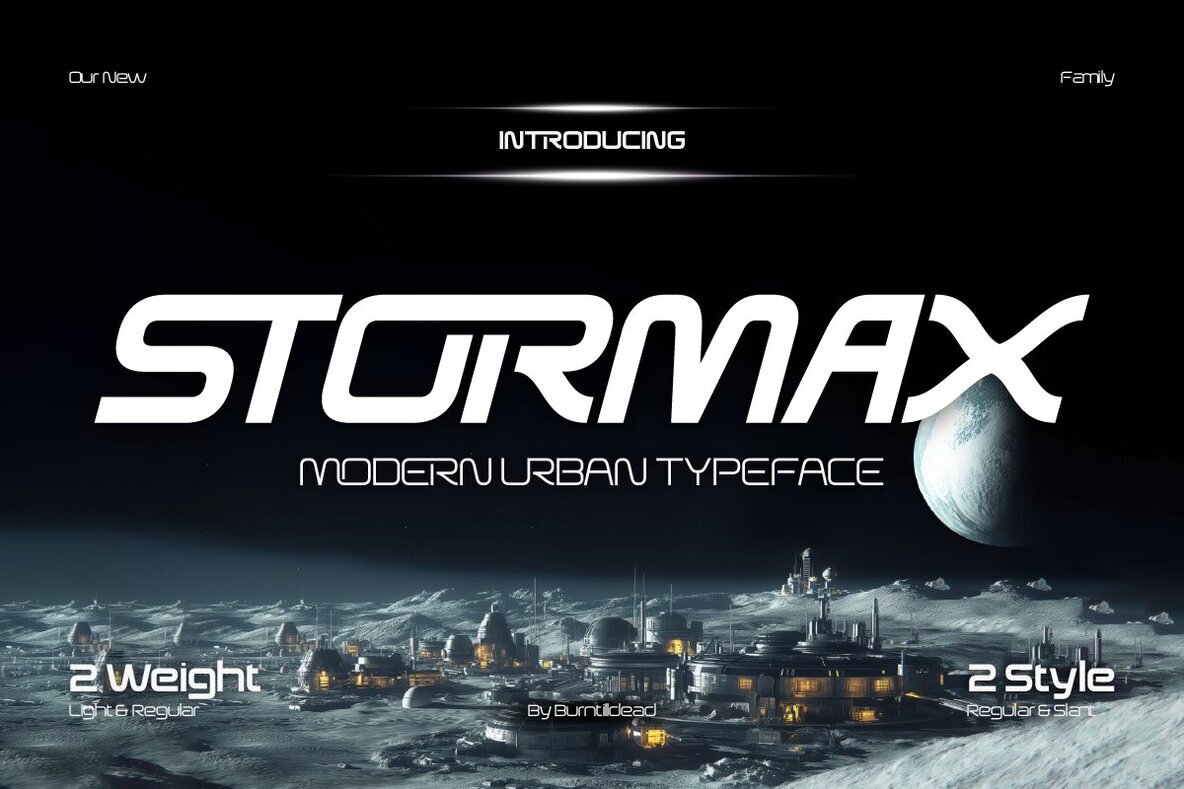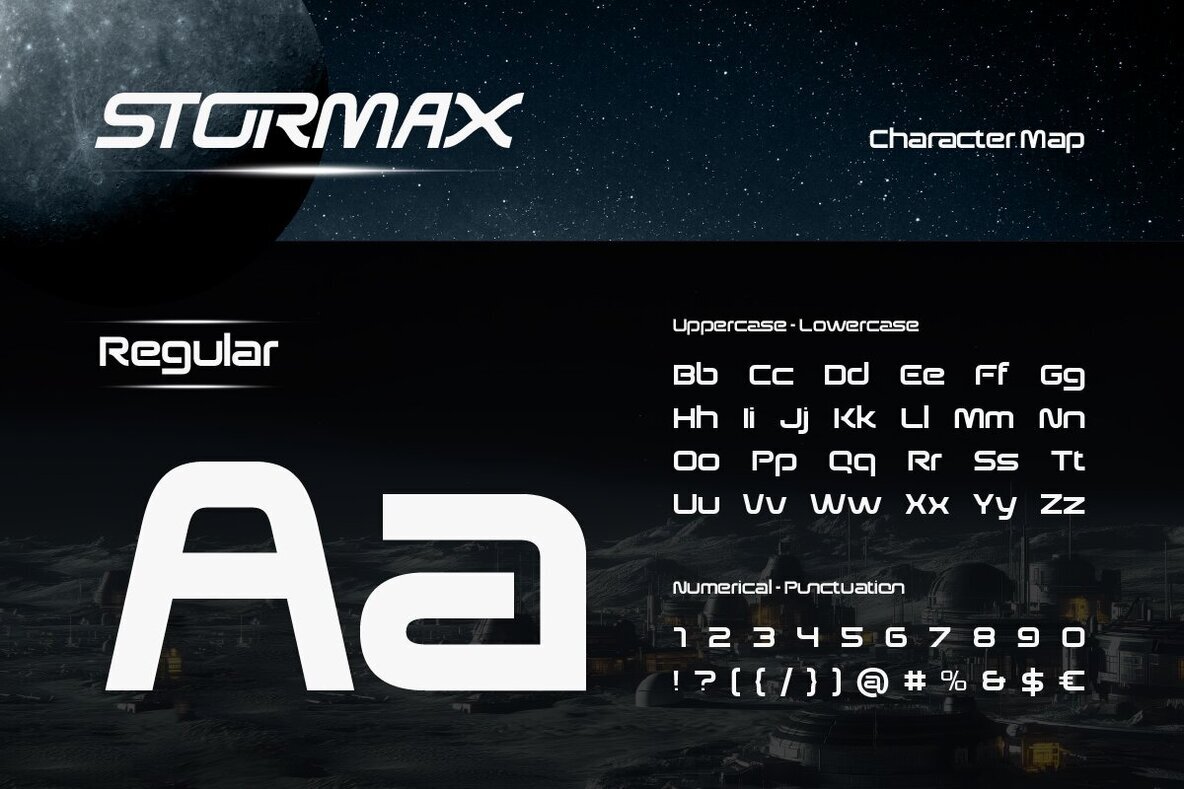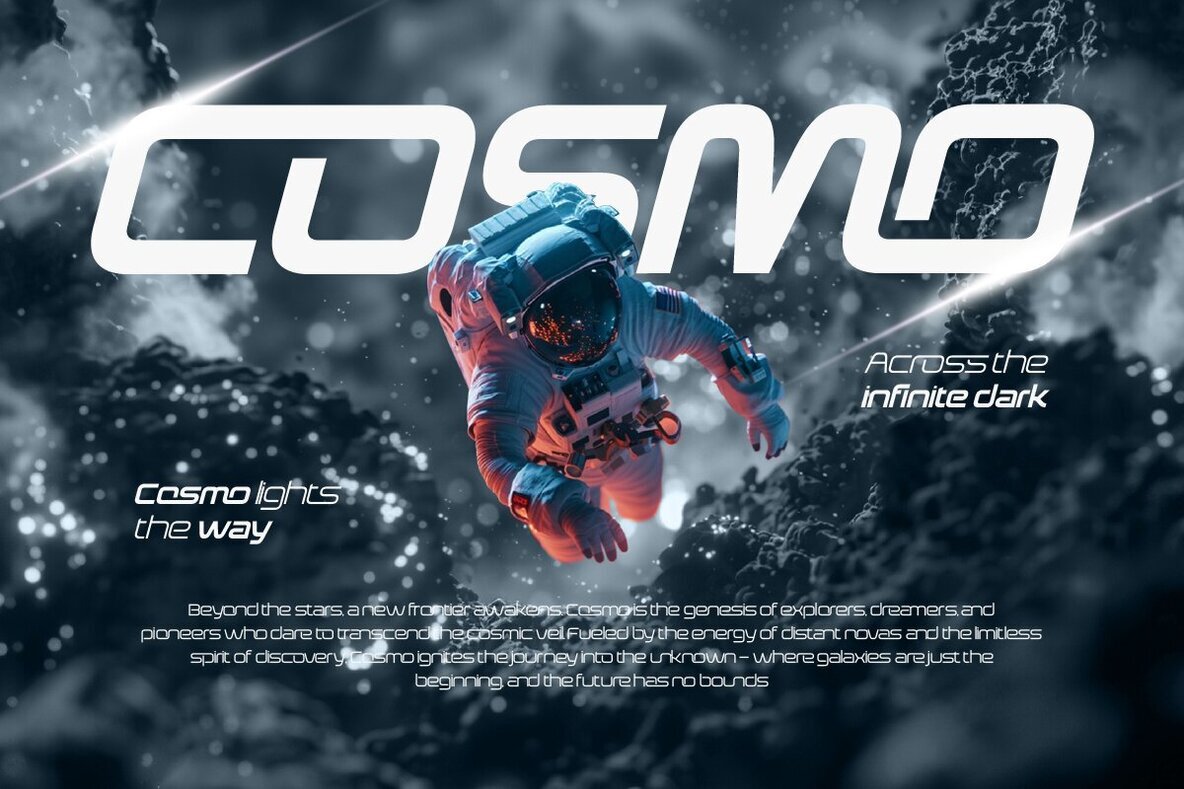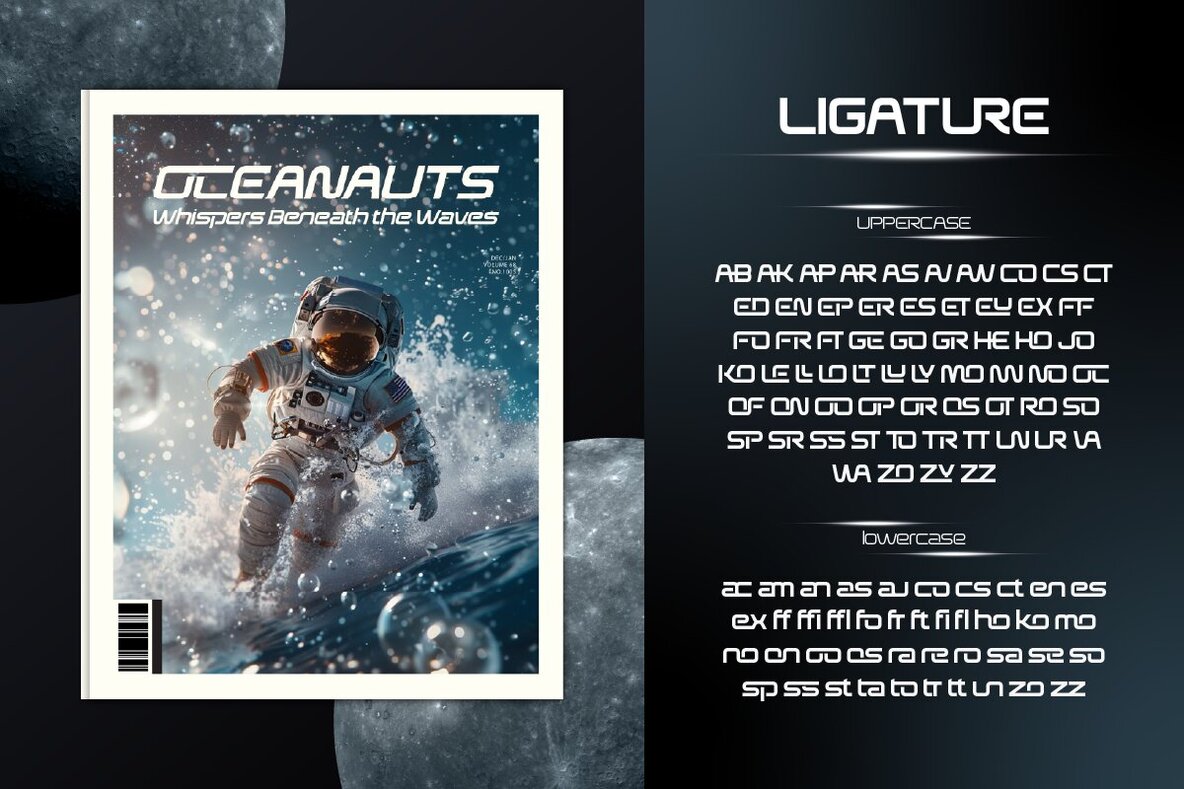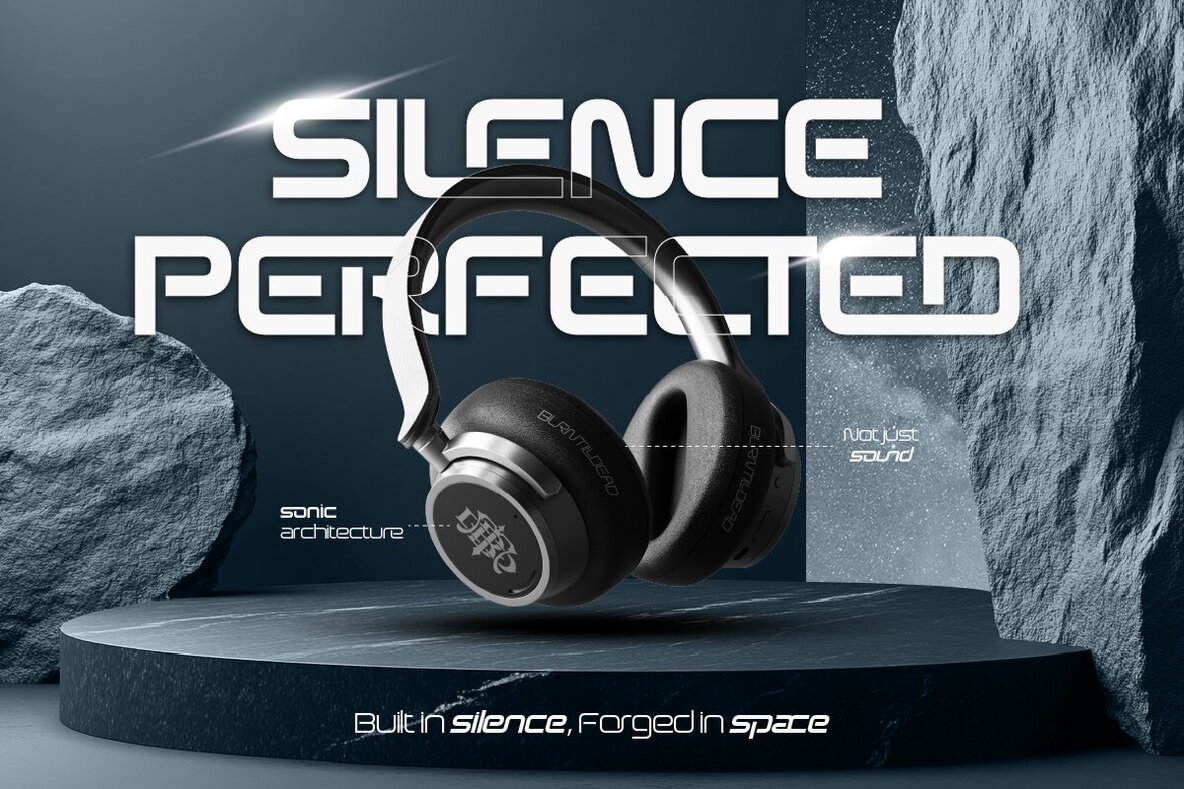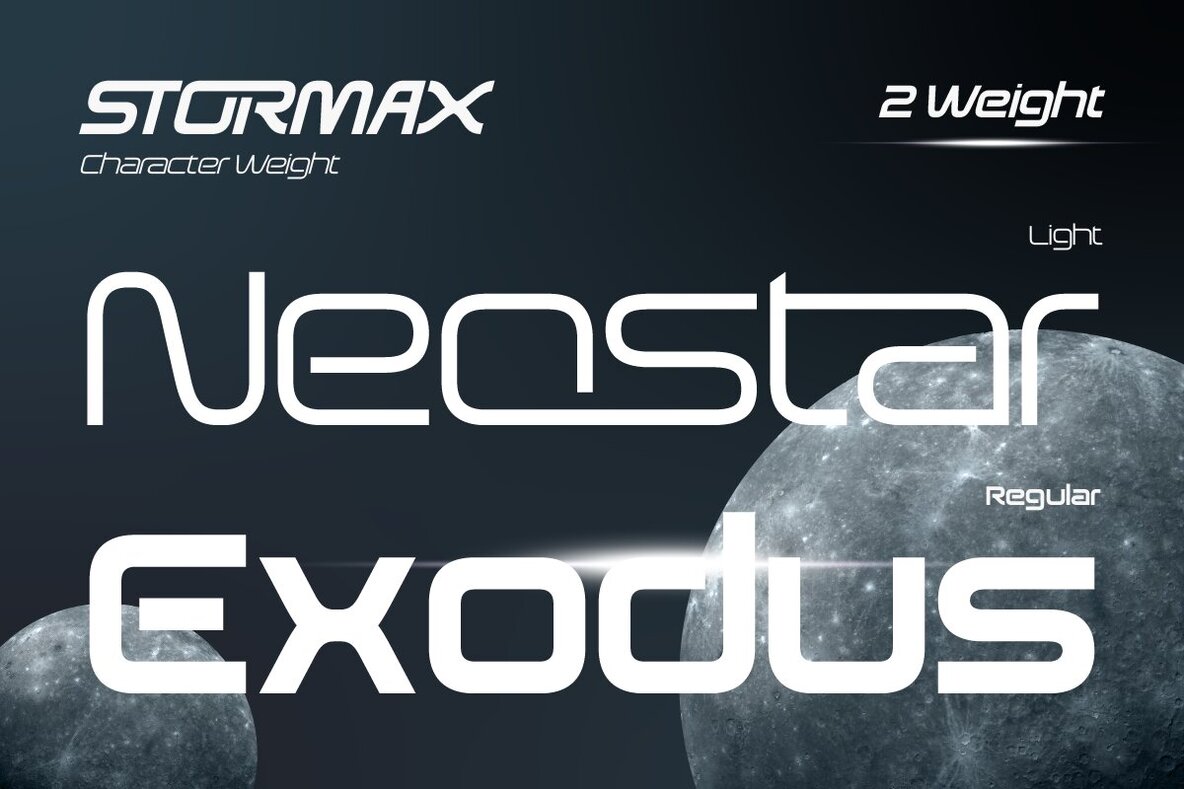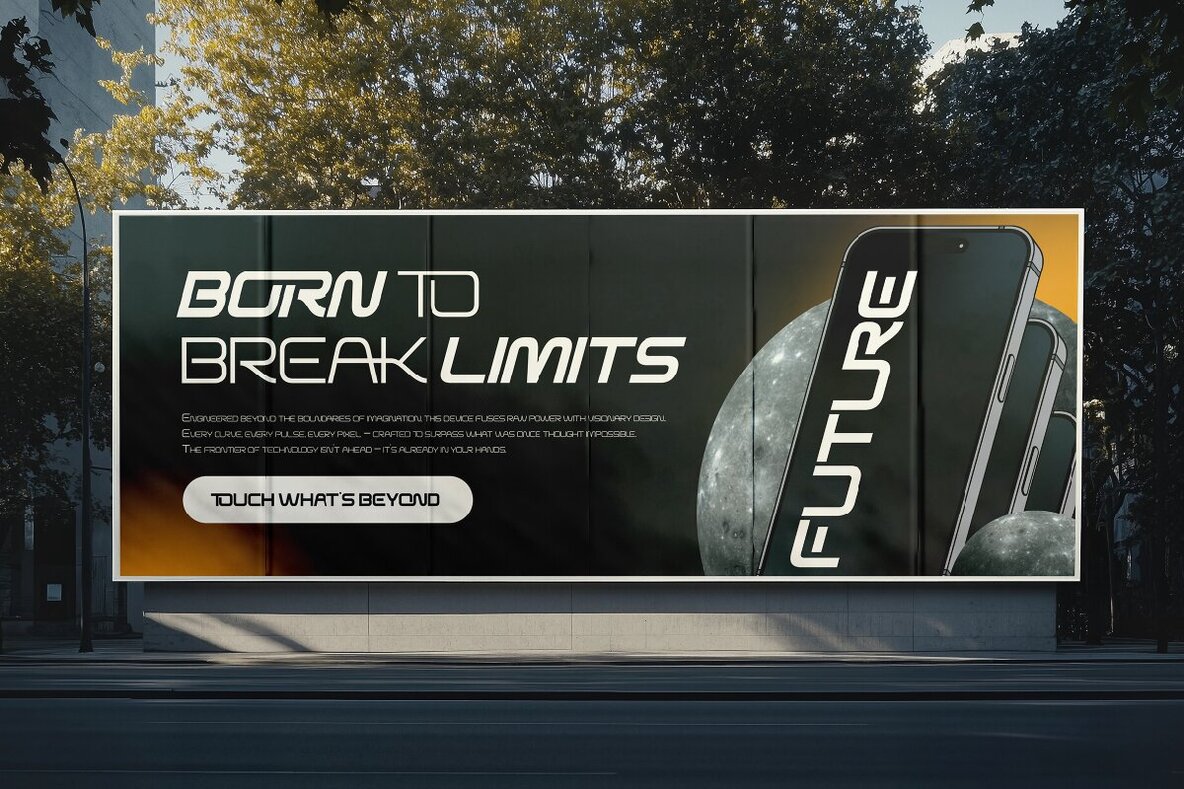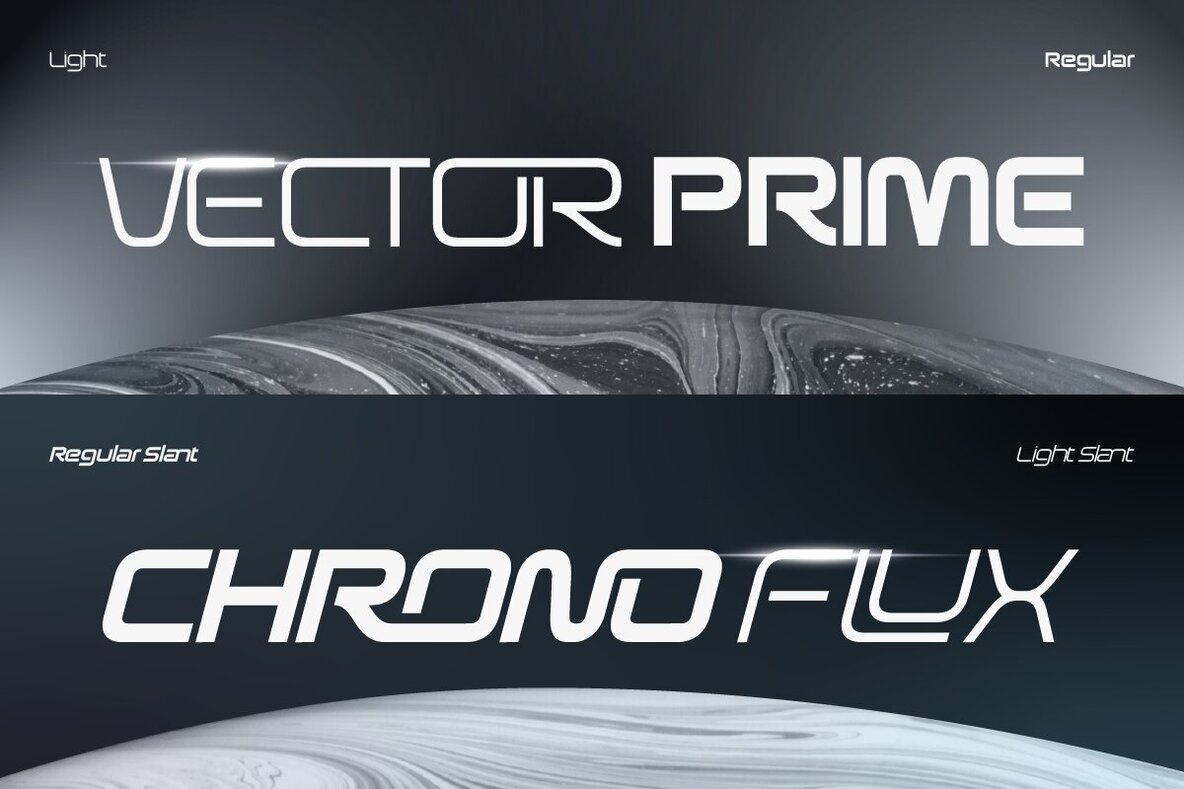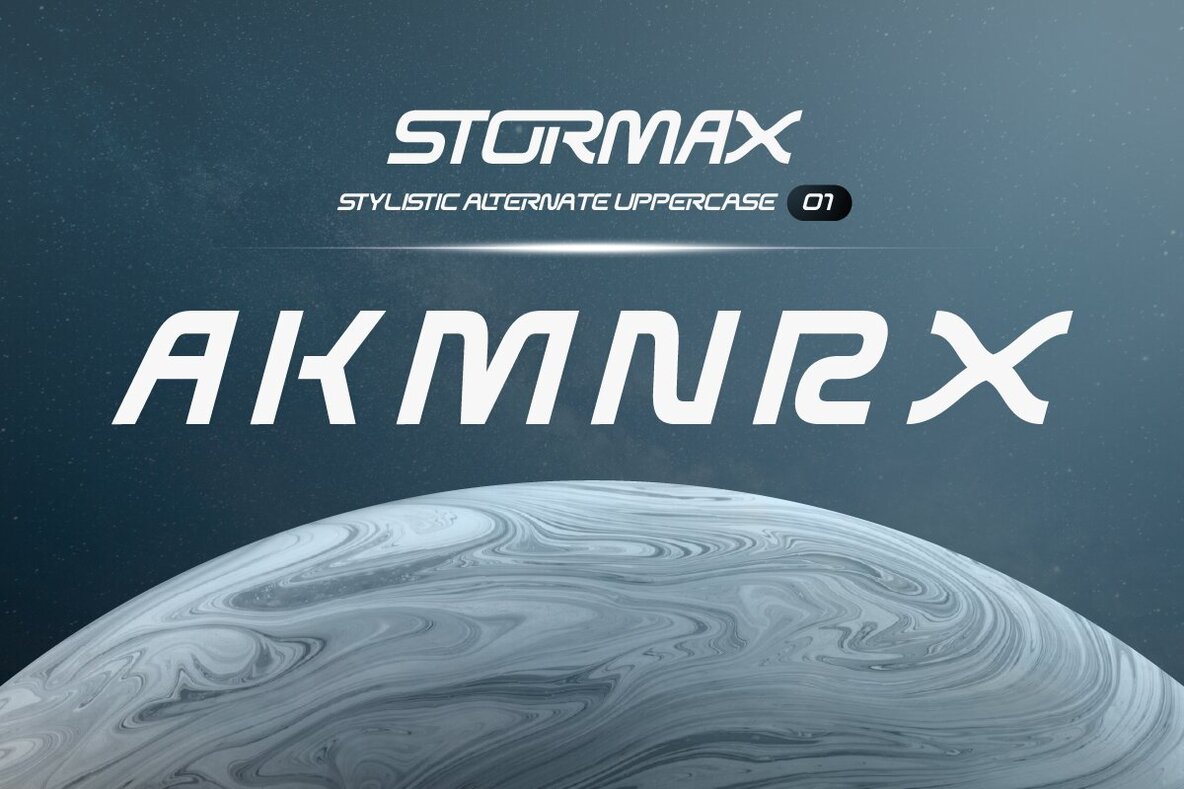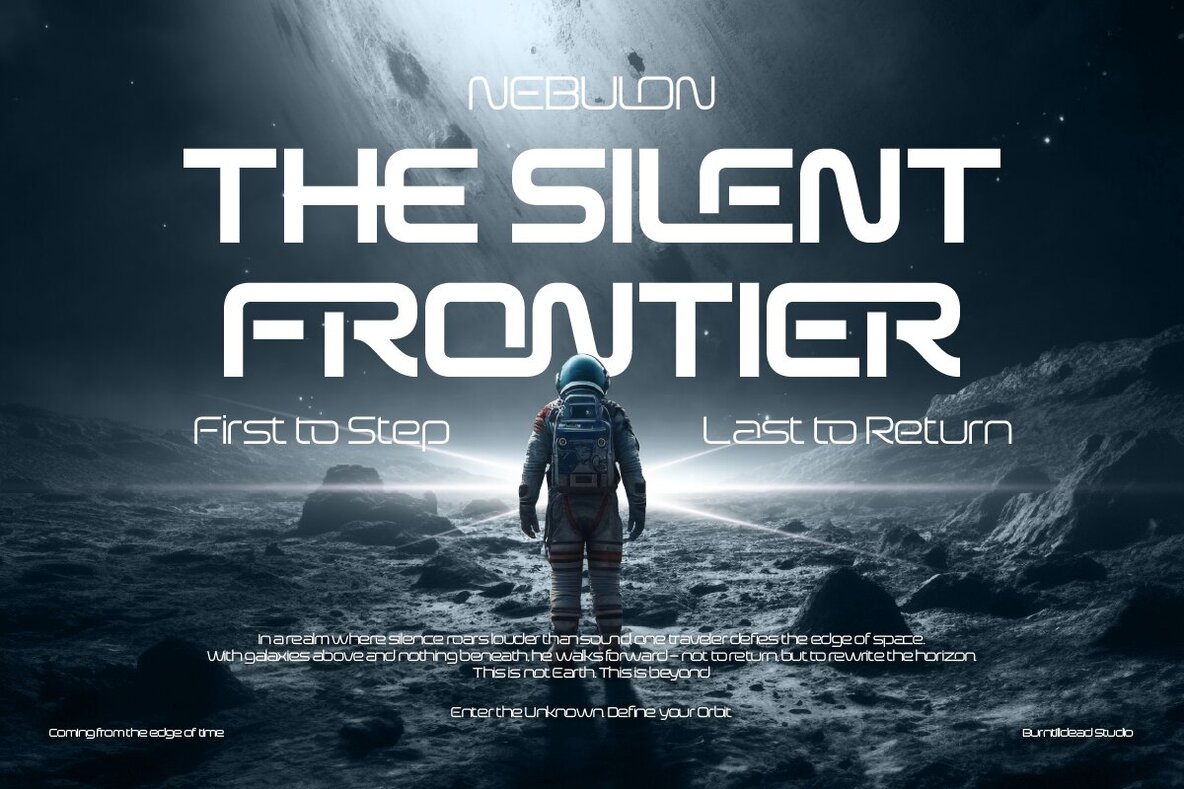
Stormax Font
Stormax is a bold sans serif typeface that embodies high-tech and futuristic aesthetics, designed to elevate your creative projects to new heights. Available in four dynamic styles—regular, slant, light, and light slant—this versatile font offers flexibility and dynamic options for any design endeavor. With a wide range of powerful alternates and ligatures, Stormax is tailored for creators who aren't afraid to push boundaries. It's the ideal choice for projects ranging from sci-fi posters and space-themed branding to innovative tech startups and gaming interfaces.Step into the Future with Stormax